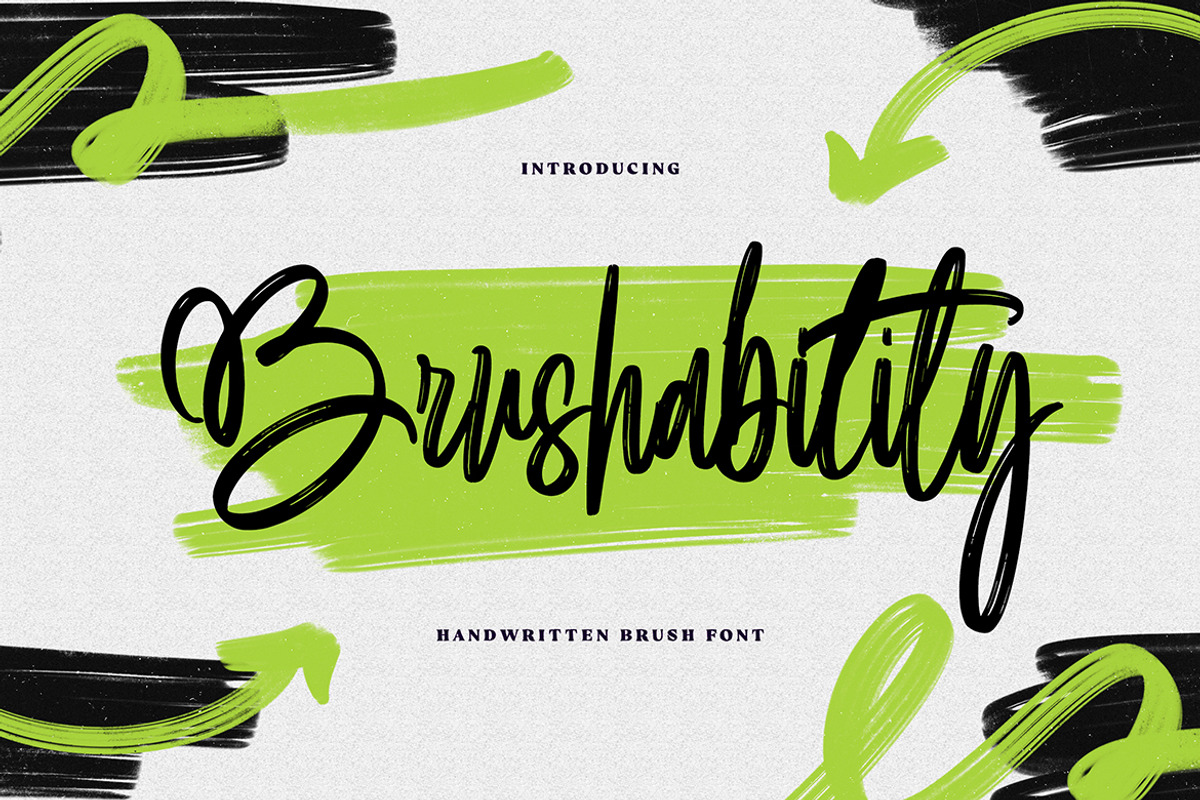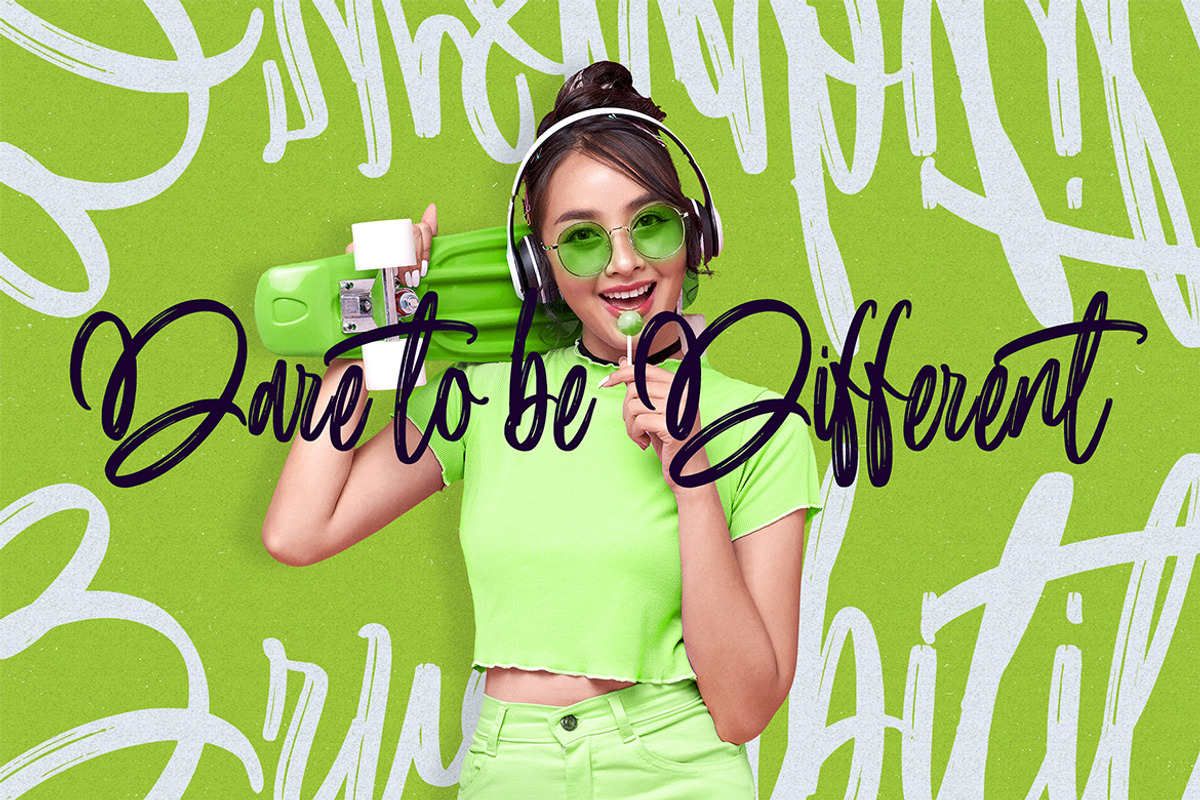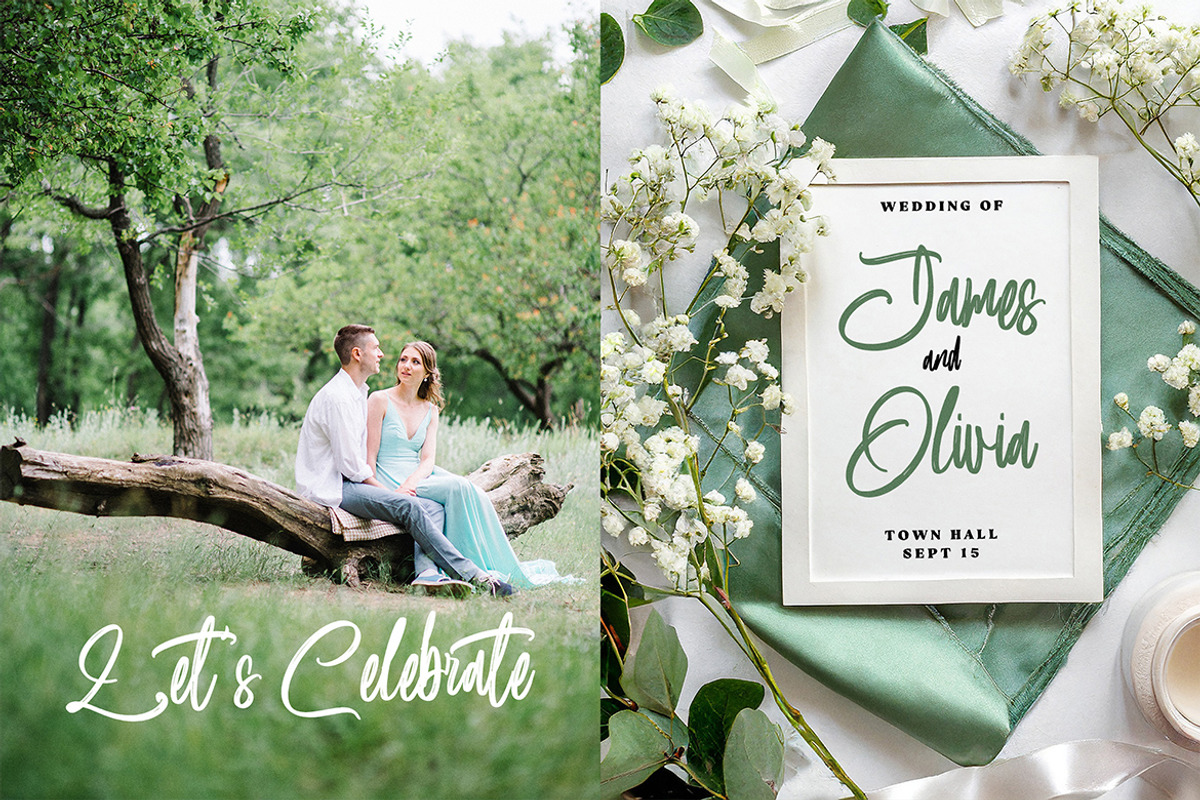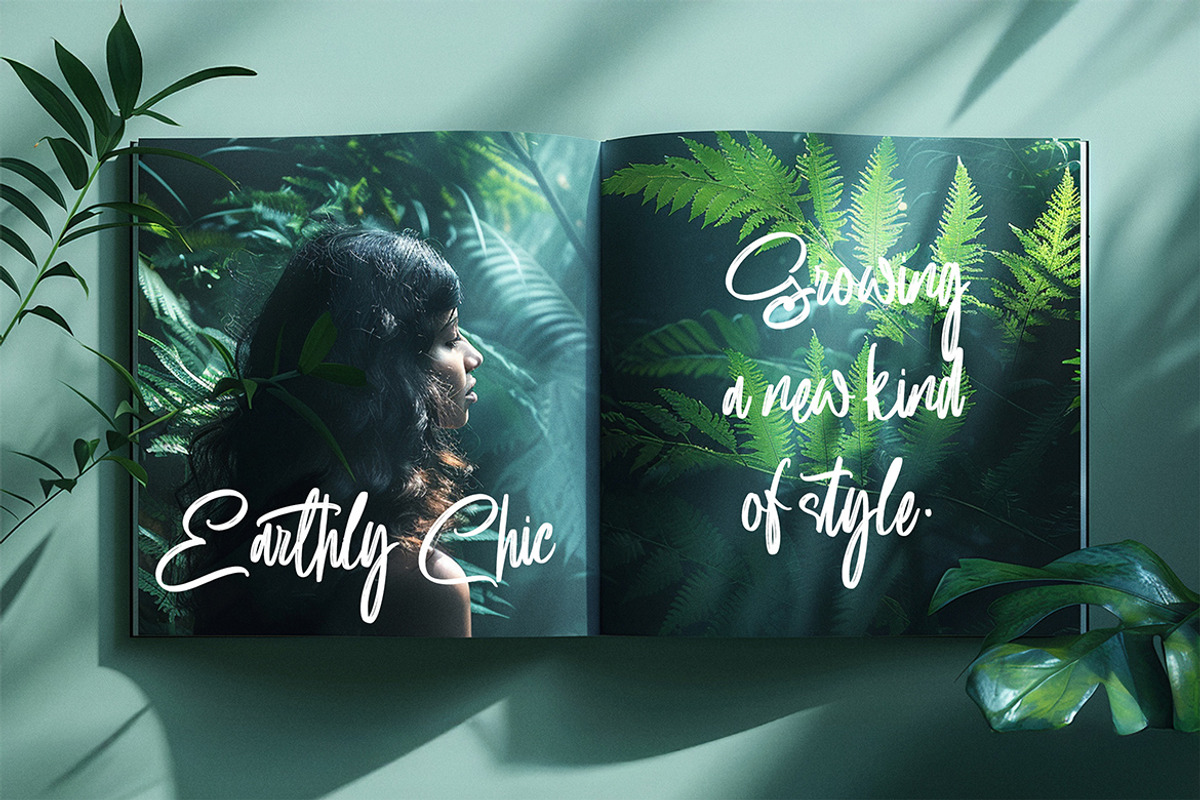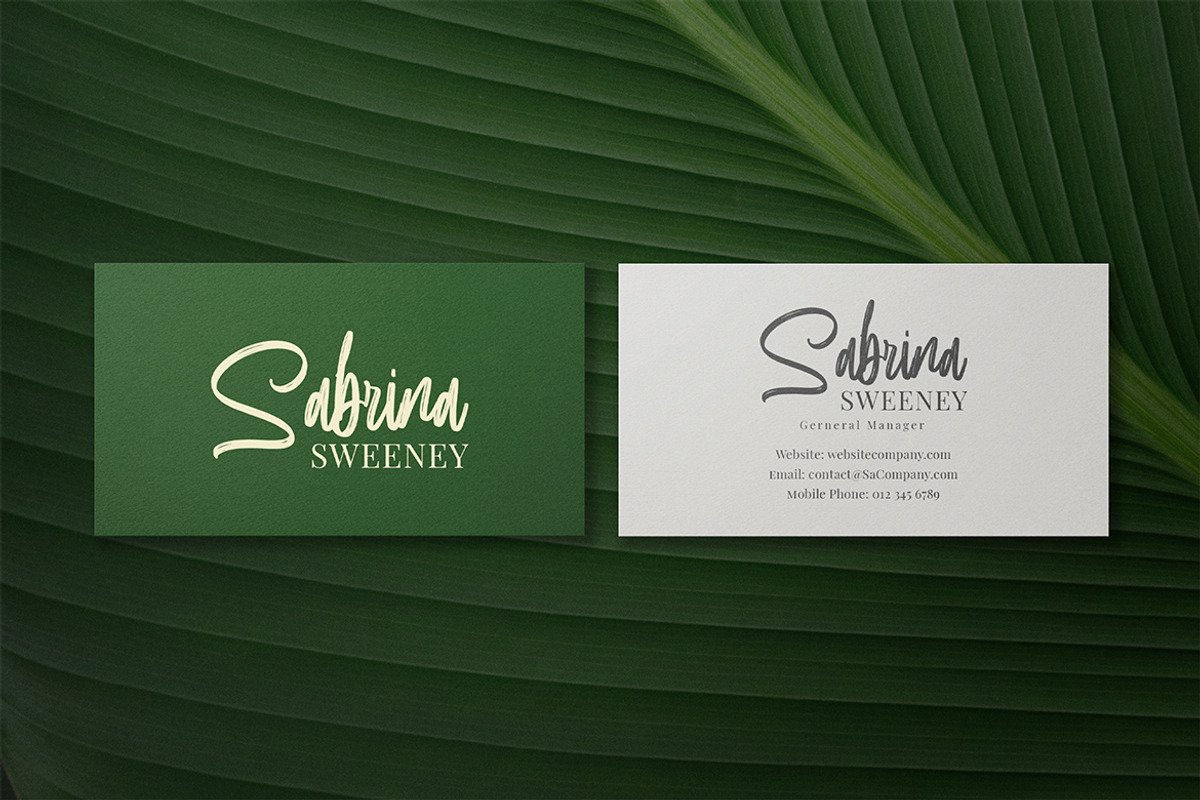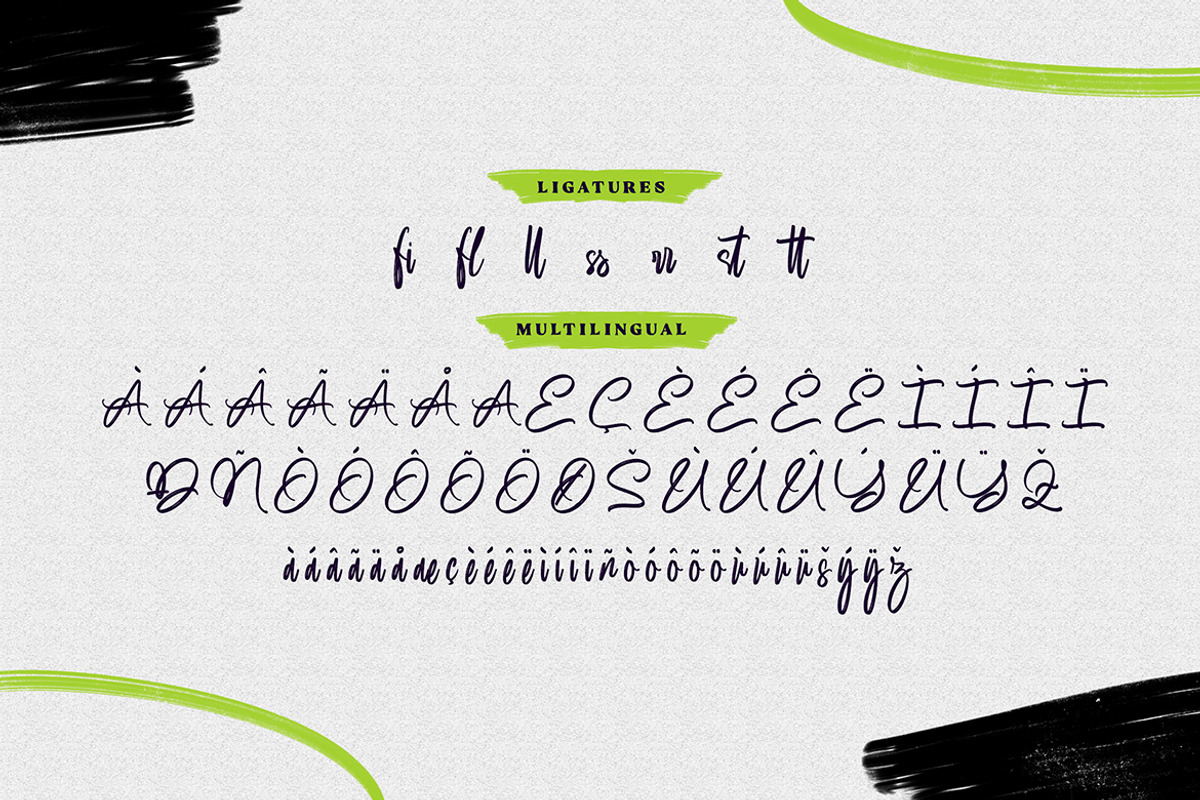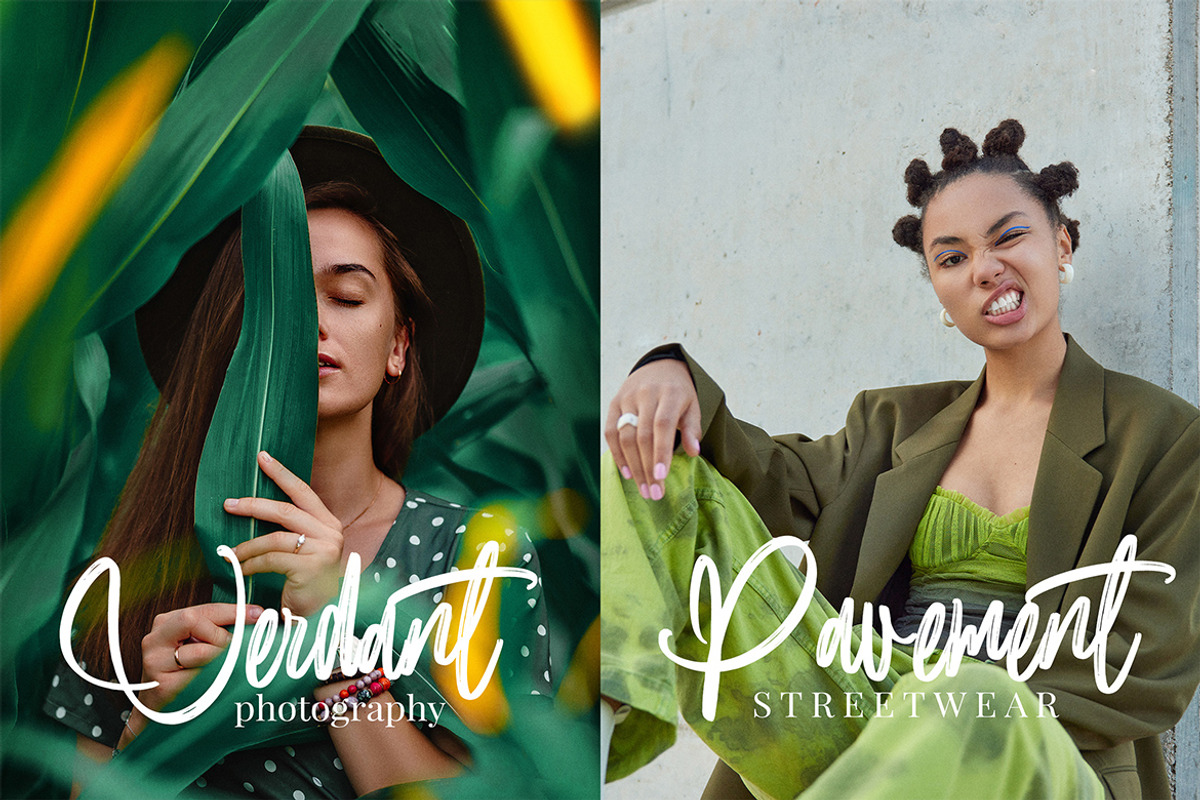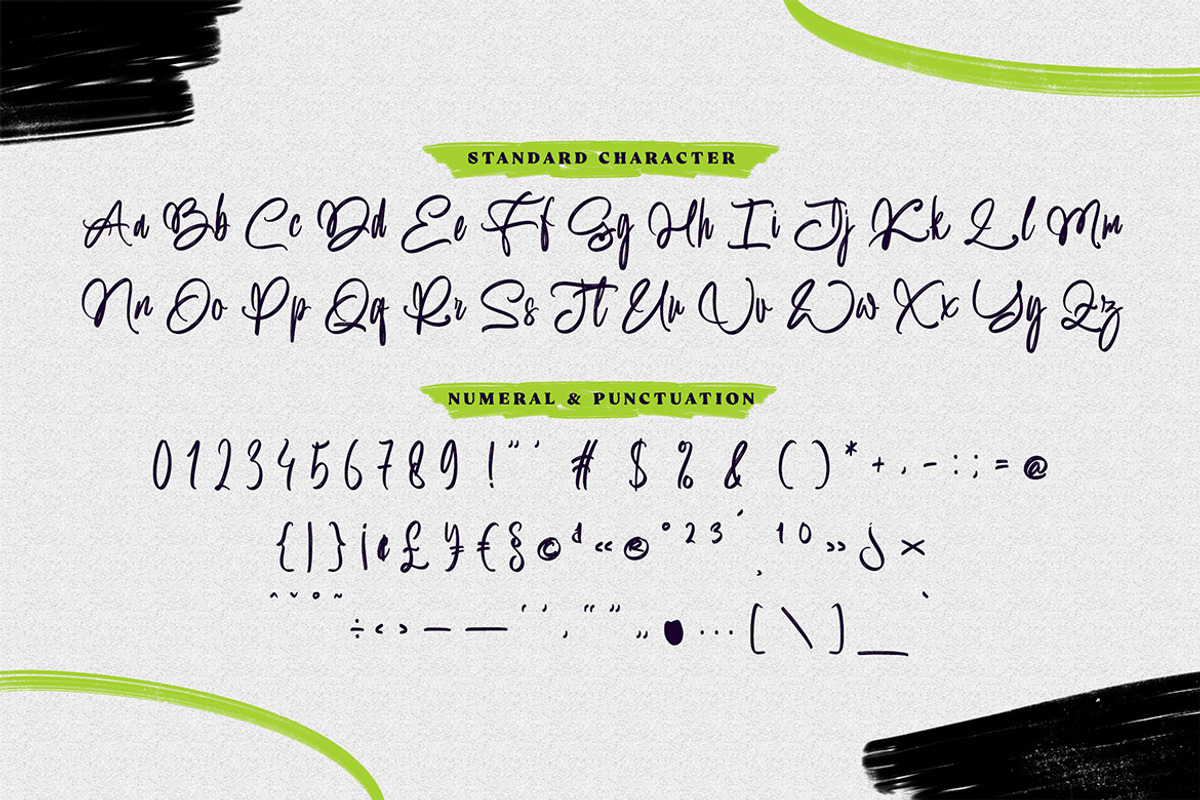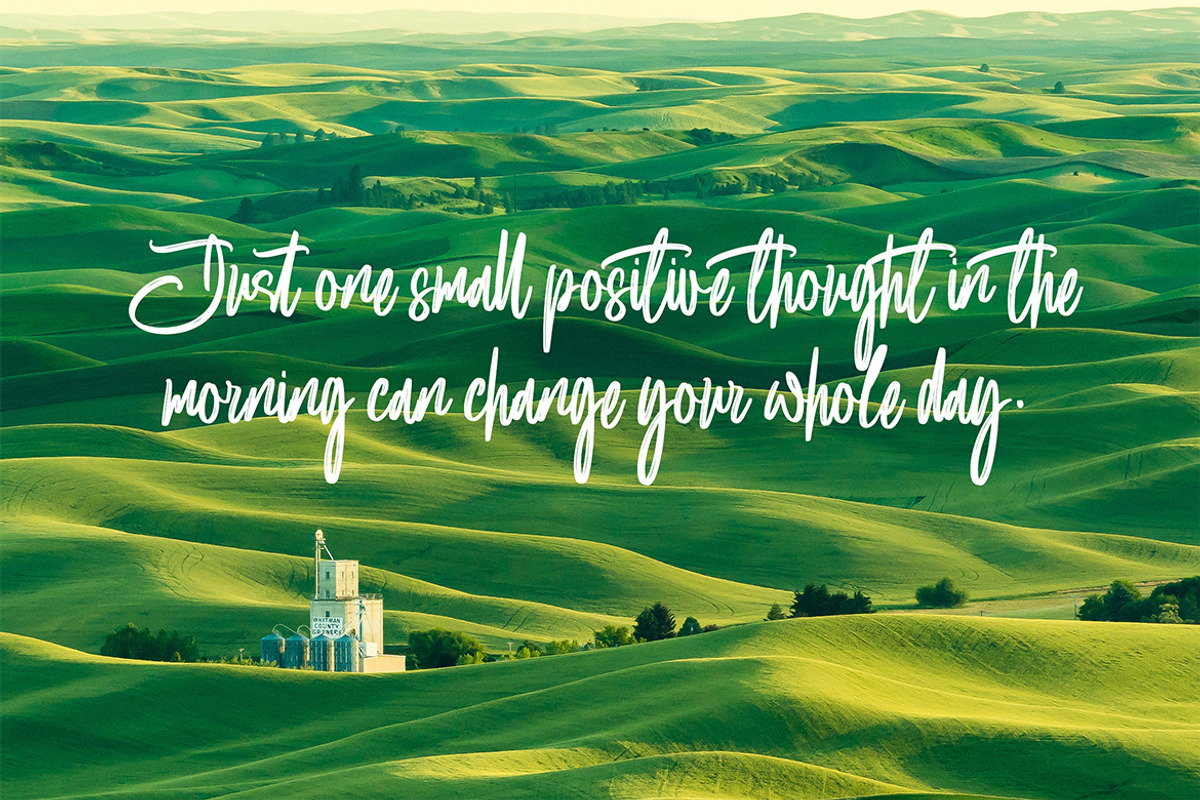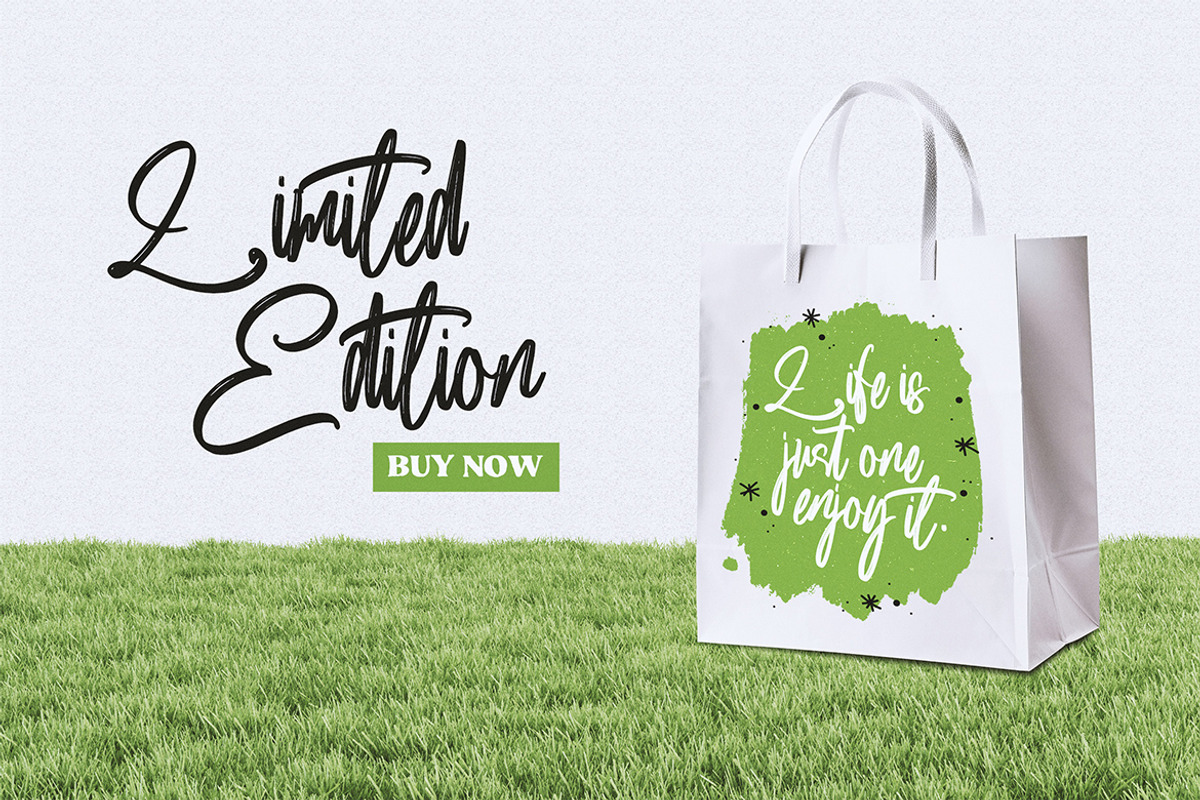
Brushability Handwritten Brush Font
Brushability - Handwritten Brush Font
Looking for a handwritten font with a vibrant, artistic feel? Introducing "Brushability," a versatile and stylish handwritten brush font perfect for adding a personal touch to your designs. Its natural, free-flowing strokes make it an excellent choice for logos, branding, quotes, wedding invitations, and much more.
- Uppercase & Lowercase letters
- Numeral and Punctuations